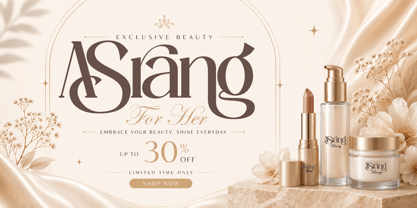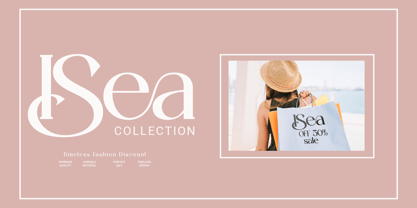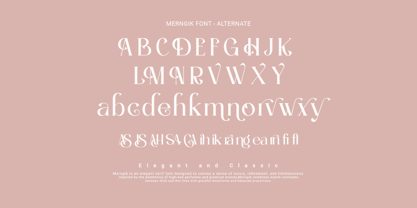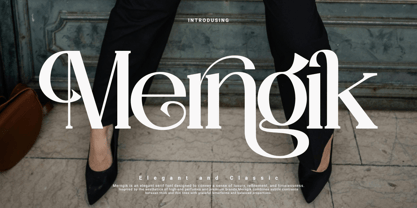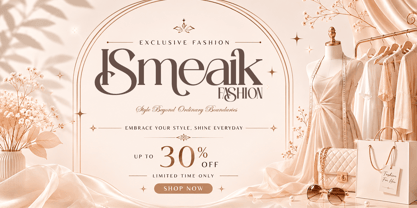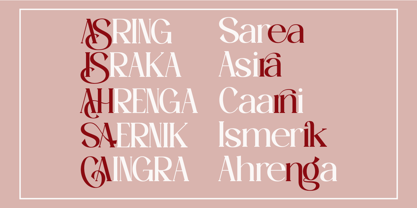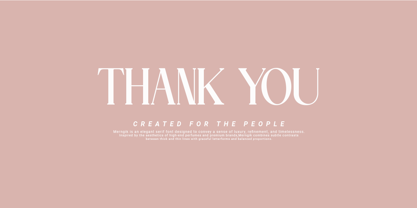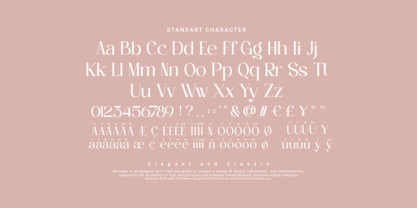
Merngik
by Agung Sudirman
The Merngik Font Family was designed by Agung Sudirman and published by Agung Sudirman. Merngik contains 2 styles and family package options. More about this family
Merngik Serif Elegant is a sophisticated and luxurious typeface that harmoniously combines the timeless beauty of classic serif typefaces with modern artistic elegance, creating a distinctive visual identity that exudes elegance, exclusivity, confidence, refinement, and premium aesthetics, making it perfectly suited for high-end fashion branding, luxury beauty products, elegant editorial designs, stylish logo concepts, modern feminine promotions, creative visual compositions, and contemporary lifestyle projects that seek to express class, prestige, delicacy, and a strong sense of artistic sophistication in every detail.